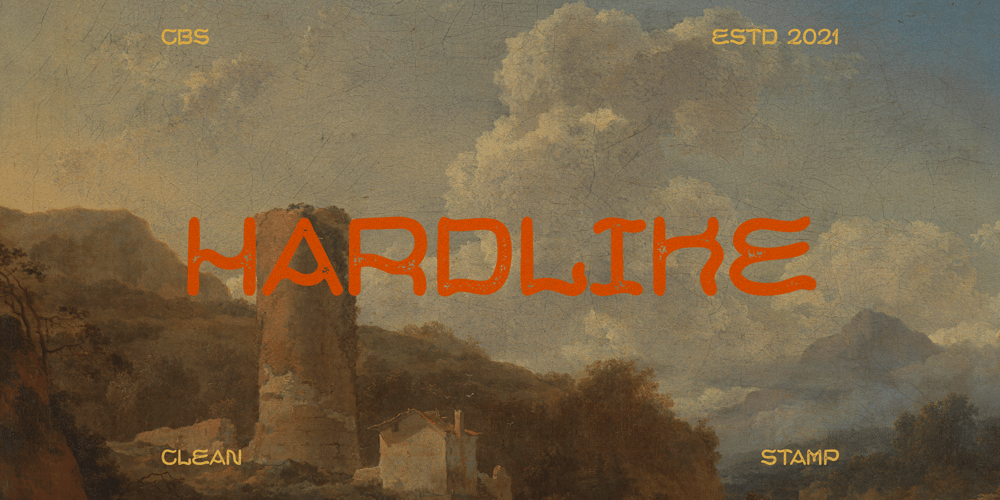
Hardlike Font Family was designed by Irpan Maulana and published by Create Big Supply. Hardlike contains 2 styles and family package options. Hardlike font clean and stamp effect. This font is PUA encoded which means you can access all the glyphs and sweeps easily Features: All Uppercase Numbers and punctuation Multilingual PUA Encoding Full Character Set!”#$%&()*+,-./0123456789:;<=>?@ABCDEFGHIJKLMNOPQRSTUVWXYZ[]^_abcdefghijklmnopqrstuvwxyz{|}~ ¡¢£¤¥§©ª«®°±²³·¹º»¿ÀÁÂÃÄÅÆÇÈÉÊËÌÍÎÏÑÒÓÔÕÖרÙÚÛÜÝÞßàáâãäåæçèéêëìíîïñòóôõö÷øùúûüýþÿıŒœŠšŸŽž–—‘’‚“”„†•‹›€−